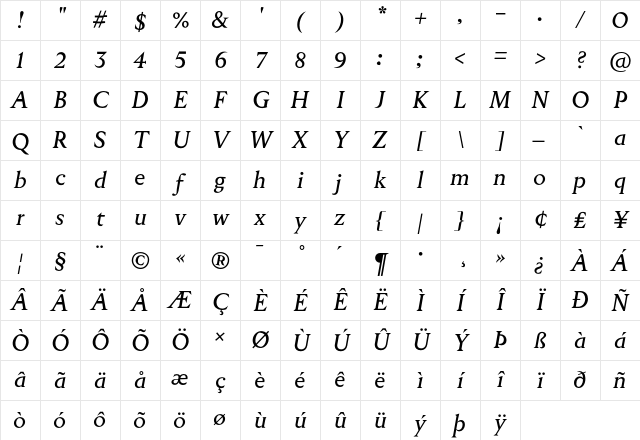
Pegasus Regular
Foundry: Fabian Harb
Design Context for Pegasus
Pegasus is a composed and adaptable typeface that performs quietly and consistently across a wide range of design contexts.
First published in 1945, this typeface is available in OpenType (OTF) format.
Who designed the Pegasus Regular font?
This font was published by Fabian Harb. Check the technical specs section for copyright and designer details.